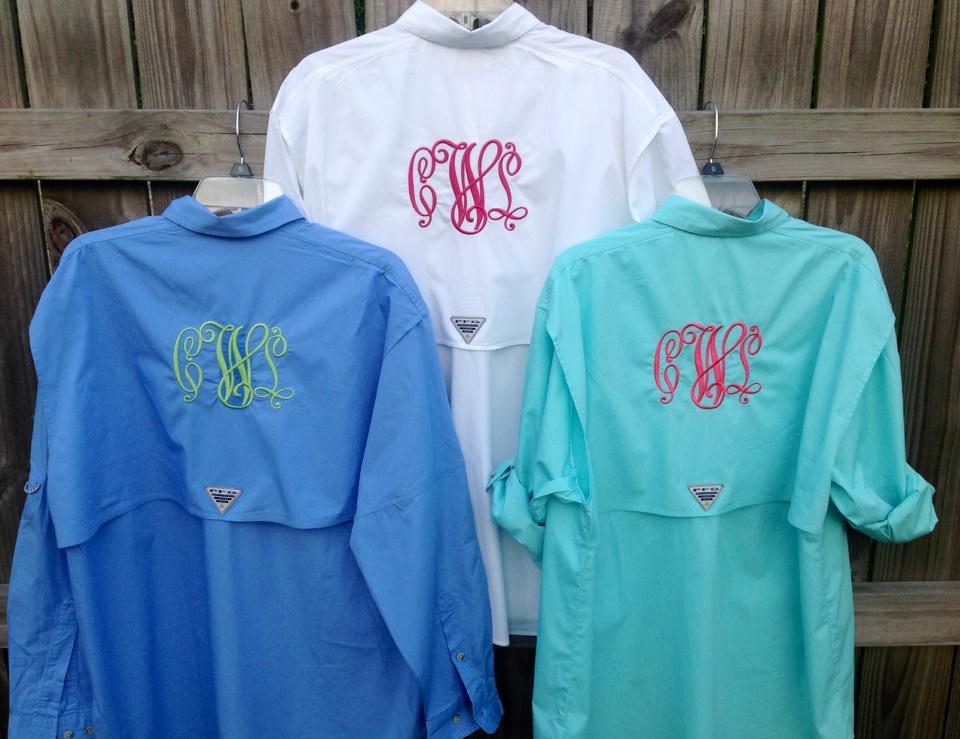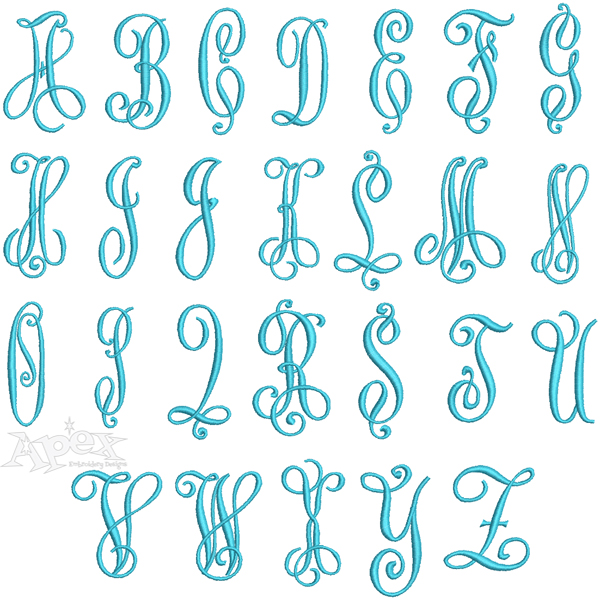
Victor Large Embroidery Fonts
Victor Large Vivian Embroidery Fonts. You get 4 Full Sets, 104 fonts. This is a satin with step stitch not a fill stitch. 4 Sizes: 6" , 8", 10", and a HUGE 12" Set.